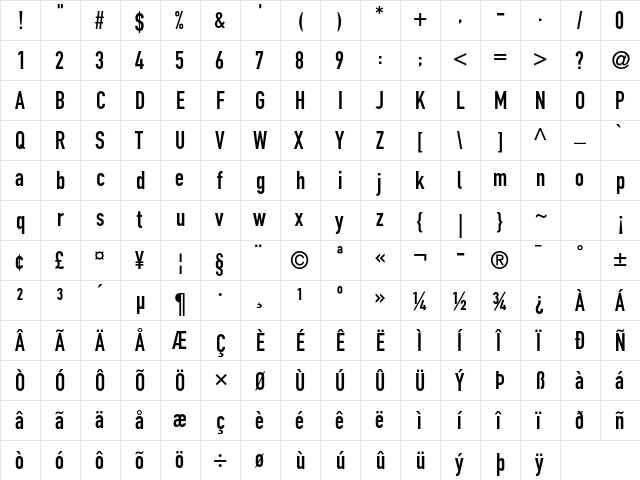
DIN 1451 Std Engschrift
| Designer | Linotype Staff |
Design Context for DIN 1451 Std Typeface
DIN 1451 Std takes a measured approach to typography — its balanced proportions and neutral character make it a reliable workhorse for both digital and print work.